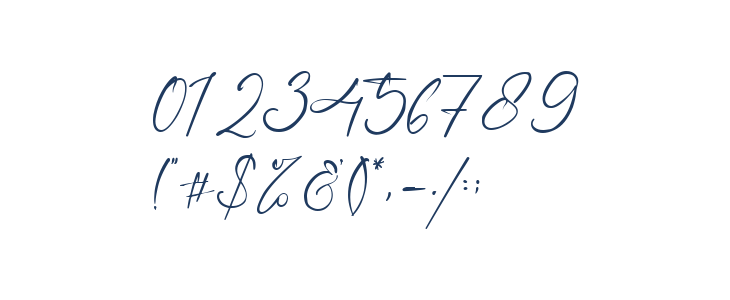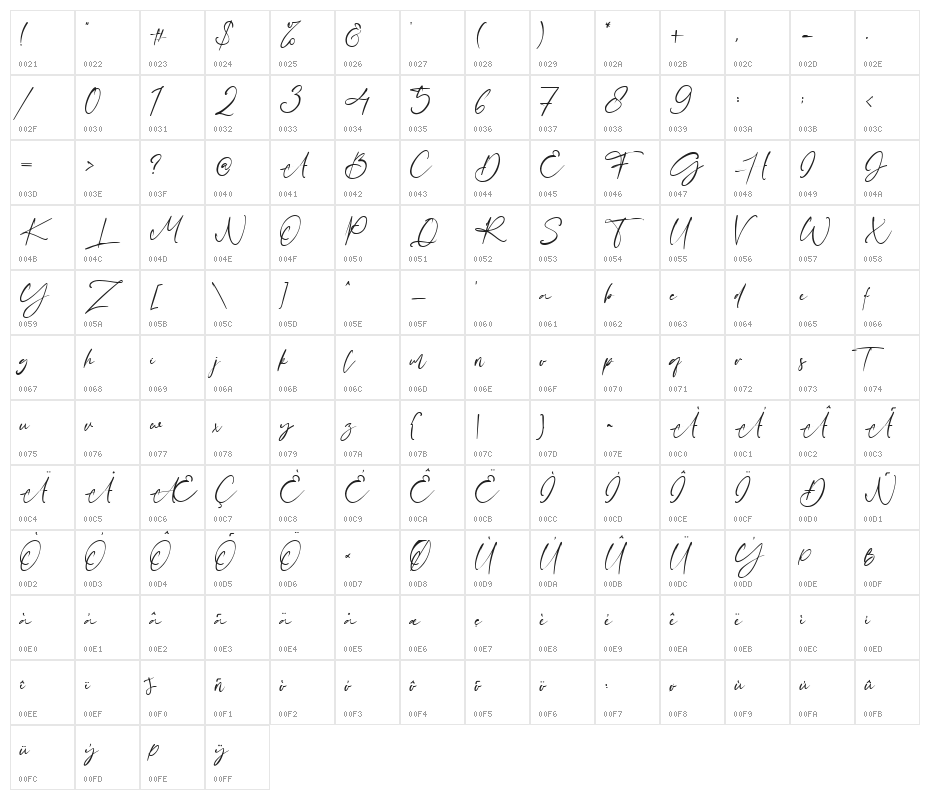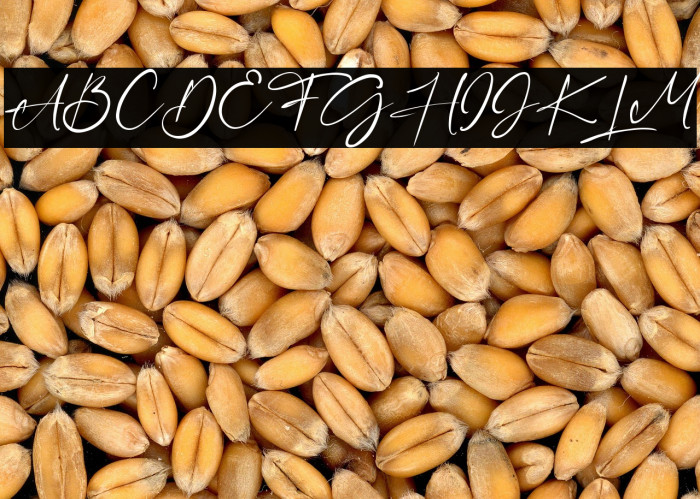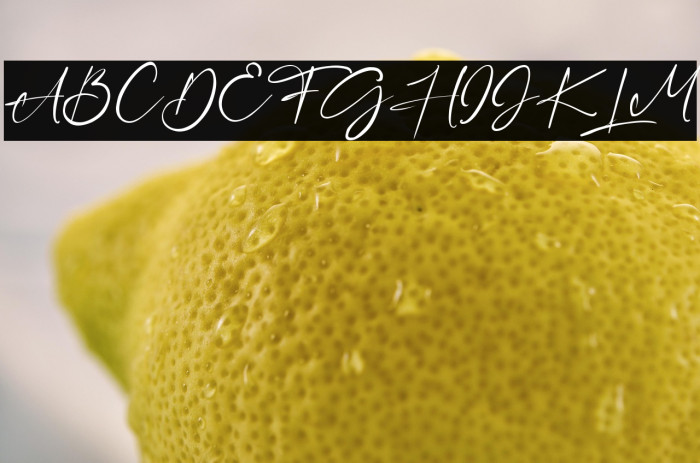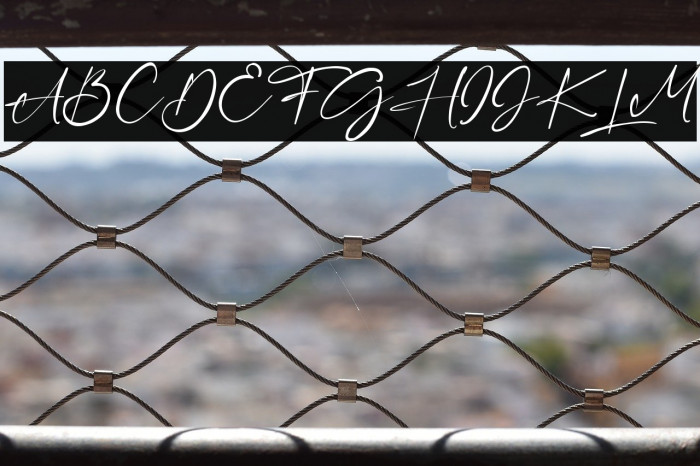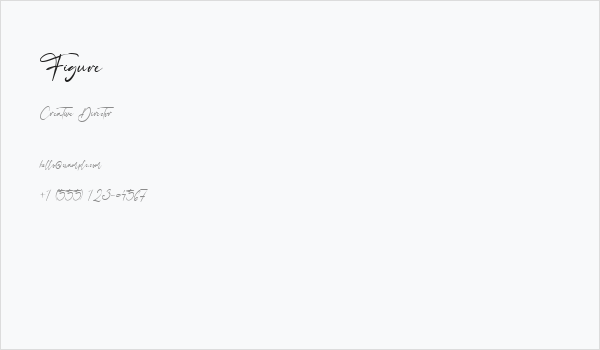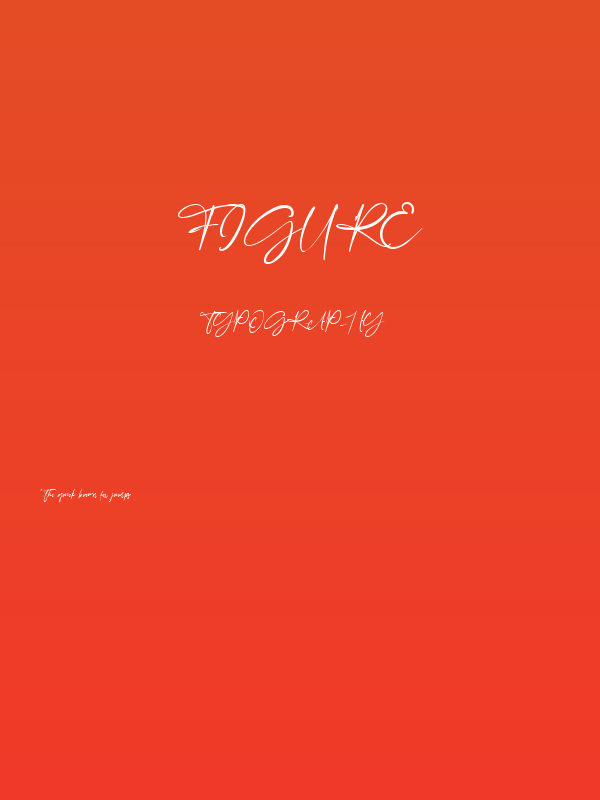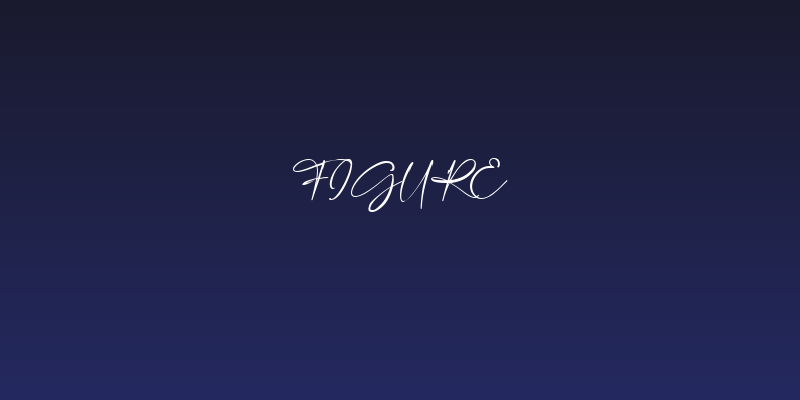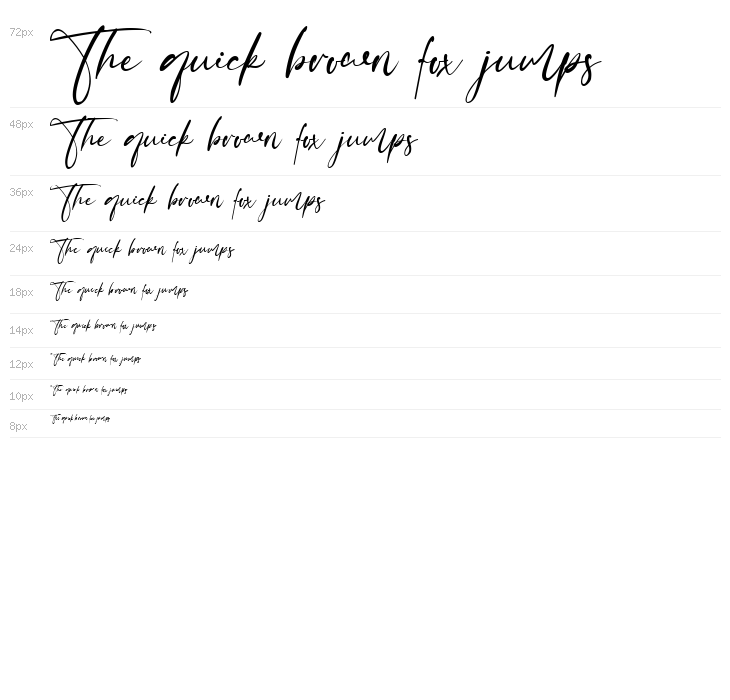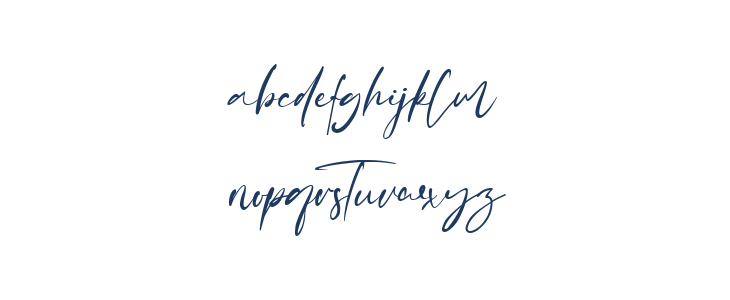
Figure Font
Figure Description
This font exudes a modern and elegant handwritten style, characterized by its fluid and graceful strokes. The uppercase letters are tall and slightly slanted, giving a sense of movement and sophistication. The lowercase letters maintain a consistent flow, with some characters featuring unique loops and swashes that add a touch of flair. Numbers are designed with a similar elegance, maintaining the script's overall aesthetic. Special characters are thoughtfully integrated, ensuring they complement the font's style. This font is perfect for projects that require a personal and artistic touch, such as invitations, branding, and social media graphics.